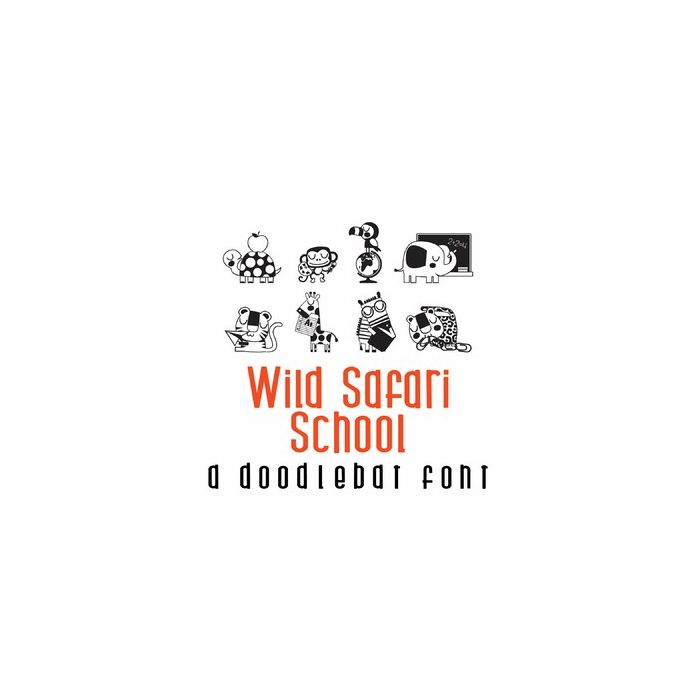
This adorable doodlebat font features whimsical safari animals ready for school and perfect for cards, crafts, gifts, decor, planner stickers, scrap book pages, parties and more!